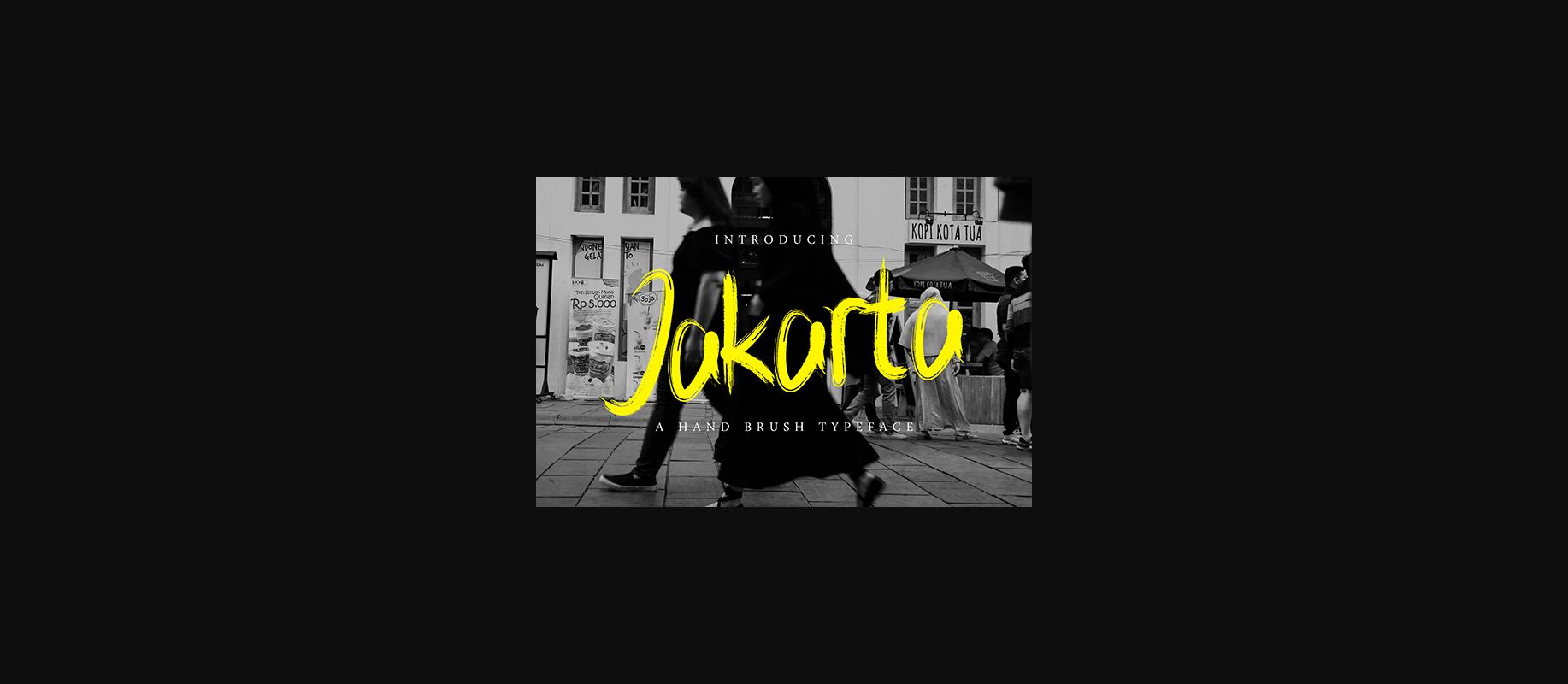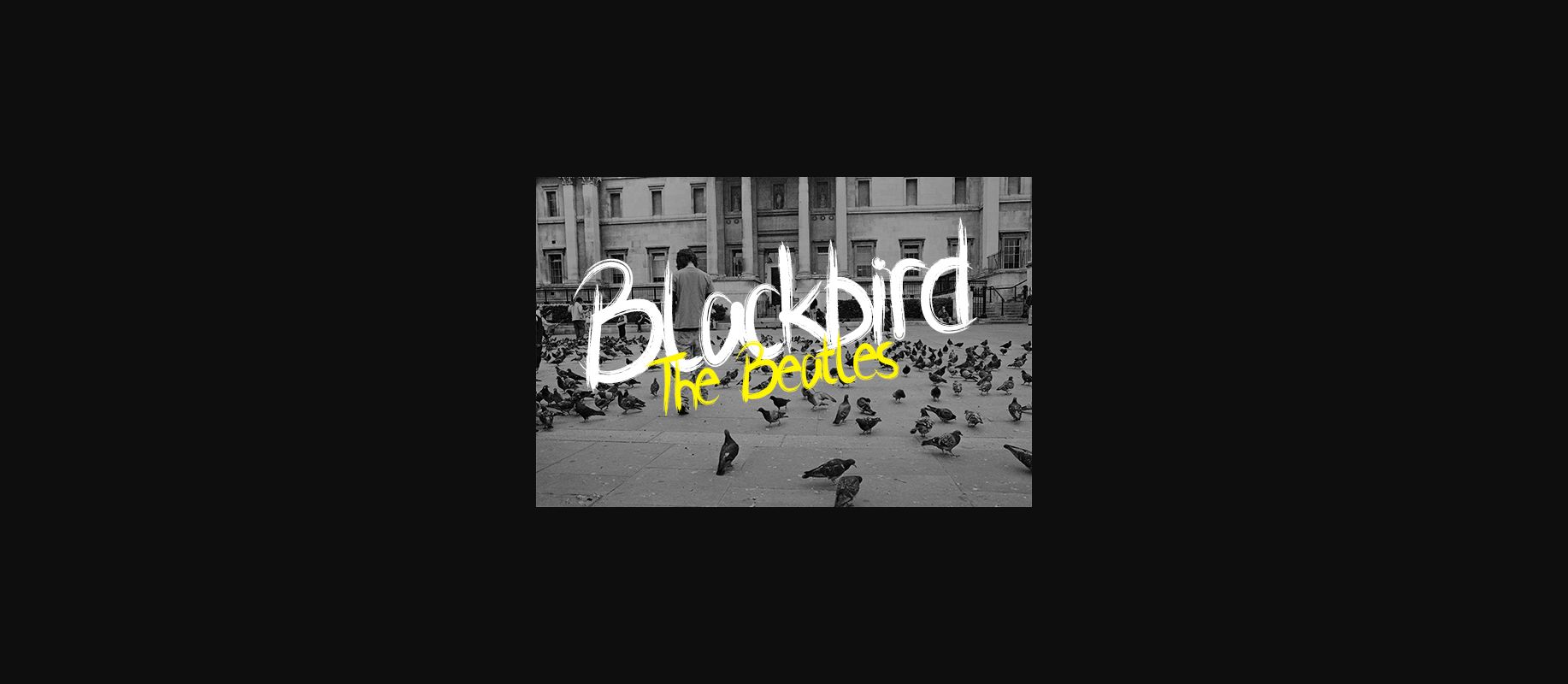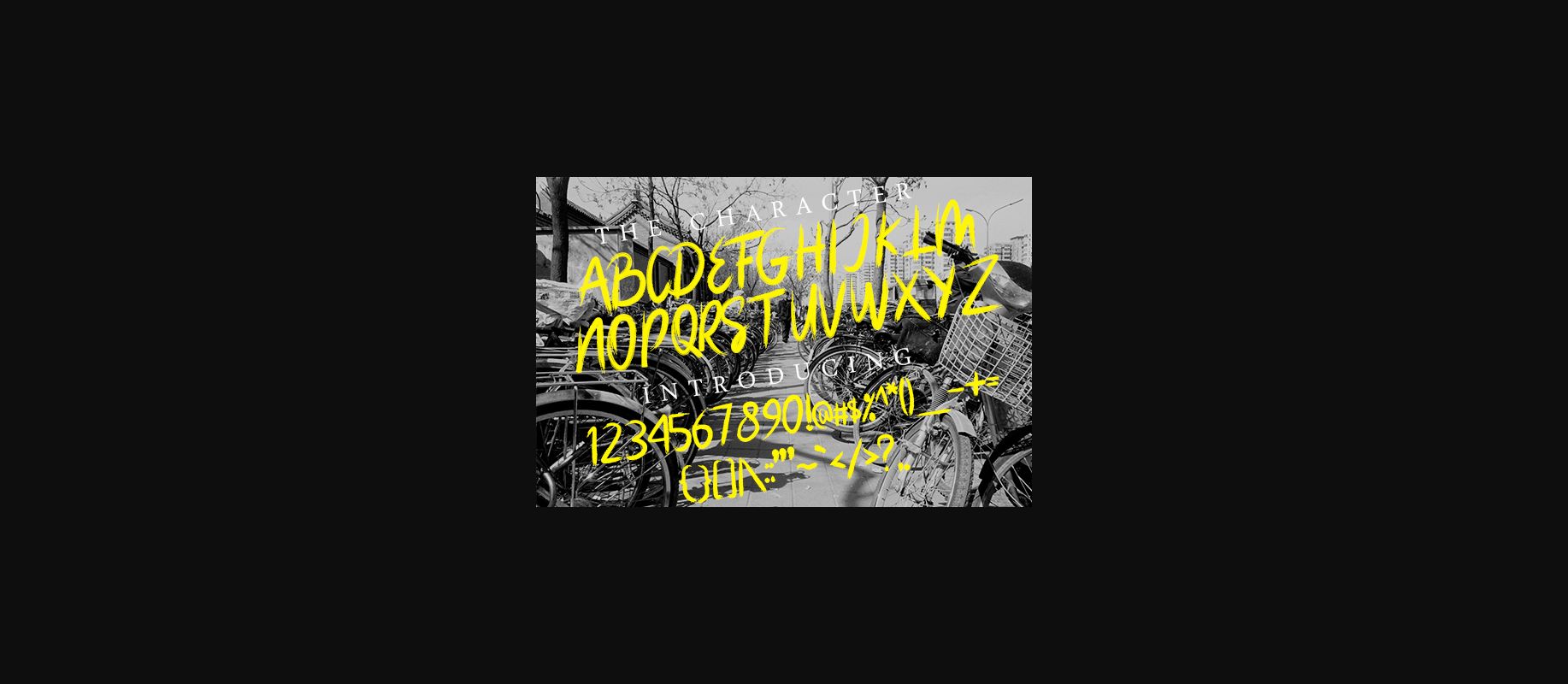
Jakarta Font
About Jakarta Font
The Jakarta is a textured dry brushed font that can add a stylish punch to your designs. It’s a great display font, perfect for use in relaxed and hip design projects.